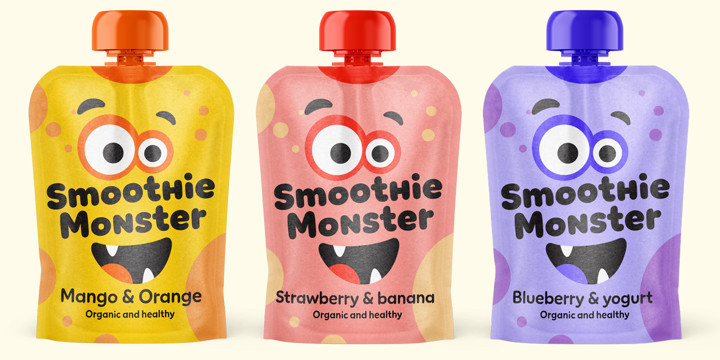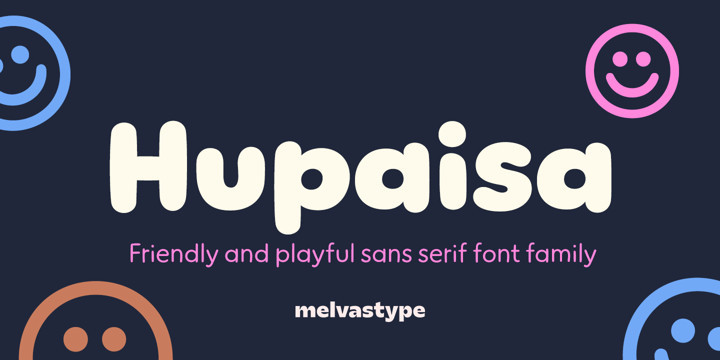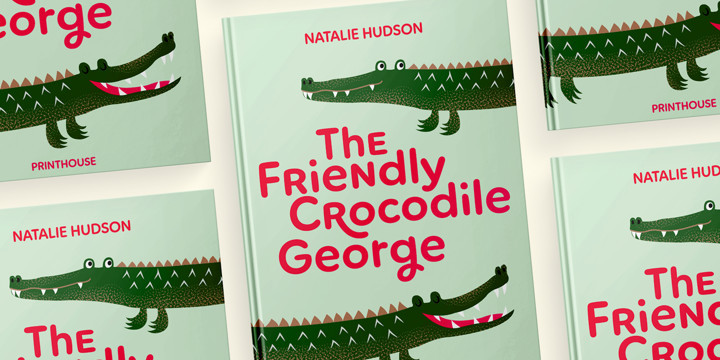
Hupaisa Font Family
Hupaisa Font FamilyHupaisa is a geometric sans serif with a casual hand-drawn feeling. It has six weights: thin, light, regular, medium, bold and black. Although Hupaisa is a display font, it is very legible also in small sizes. That makes Hupaisa very useful in design projects. You can use it on titles and body texts. Create interesting typography with a proper hierarchy.
Hupaisa also includes many alternate characters, ligatures and swashes to give you options to play with. Use them to create interesting titles, wordmarks, quotes or logos.